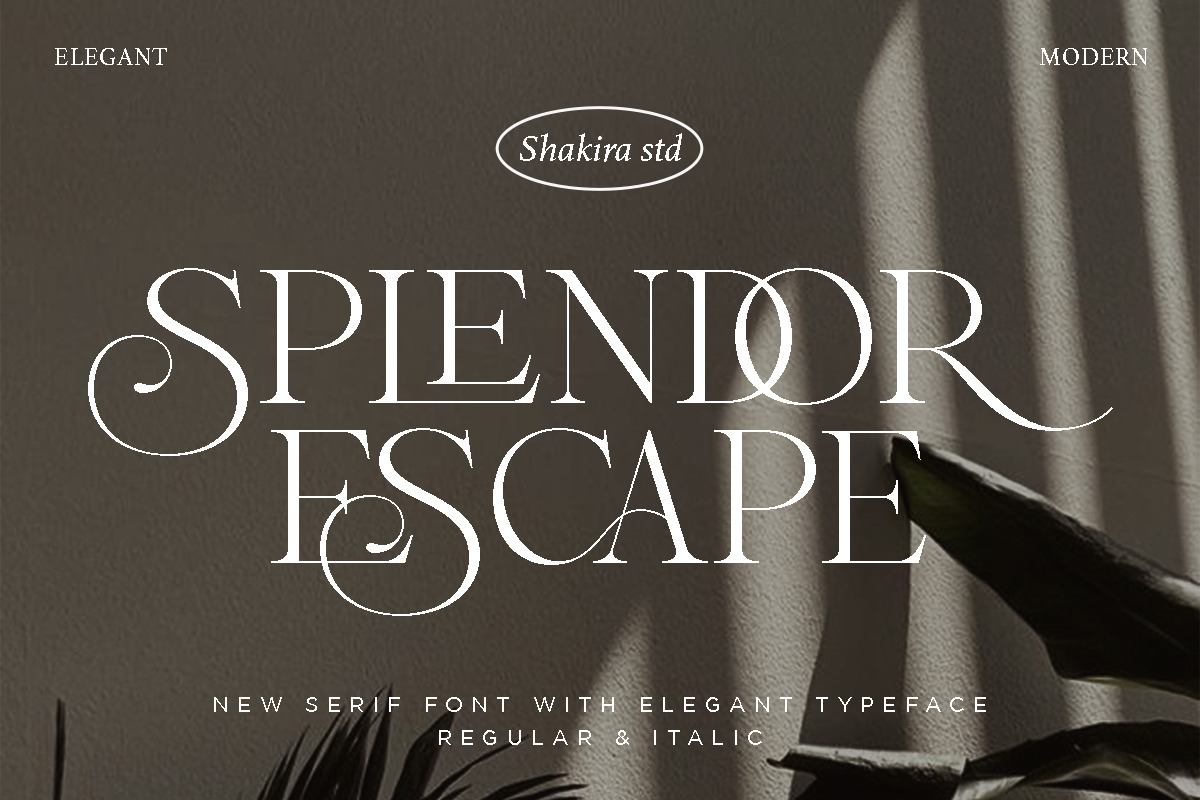
Sophisticated, refined, and timeless, Splendor Escape - Elegant Serif Font Free Download is a stunning typeface that blends modern elegance with classic serif style. Perfect for luxury branding, editorial design, invitations, packaging, and high-end projects, this font exudes sophistication and grace.
With its high contrast, sharp serifs, and clean lines, Splendor Escape brings a polished, luxurious feel to any design. Whether you're creating a premium brand identity, designing an elegant invitation, or working on a fashion editorial, this font ensures your typography makes a lasting impression.